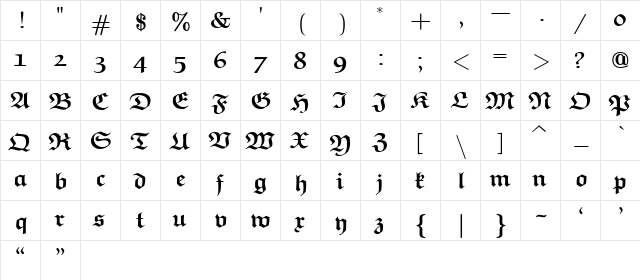
Euclid Fraktur Bold
Design Context for Euclid Fraktur Typeface
Euclid Fraktur draws on the rich tradition of blackletter calligraphy, with dense, angular strokes that evoke medieval manuscripts and old-world craftsmanship. The heavy weight commands attention and anchors typographic hierarchies.
Well-suited to band logos, craft beer branding, tattoo lettering, and heritage-themed identities.
Font Pairing: Pair with a clean neutral sans-serif for body copy to let Euclid Fraktur's character lead without overwhelming the composition.
Pro Tip: Use Euclid Fraktur sparingly at large sizes. Even a single word set in blackletter can define the visual register of an entire design.